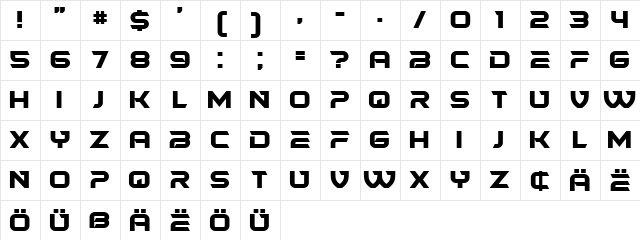
Complete Sephora Bold glyph index. Displaying only characters natively supported by Sephora Bold font.
Sephora is a composed and adaptable typeface that performs quietly and consistently across a wide range of design contexts. Its bold stroke weight gives it real presence on the page.